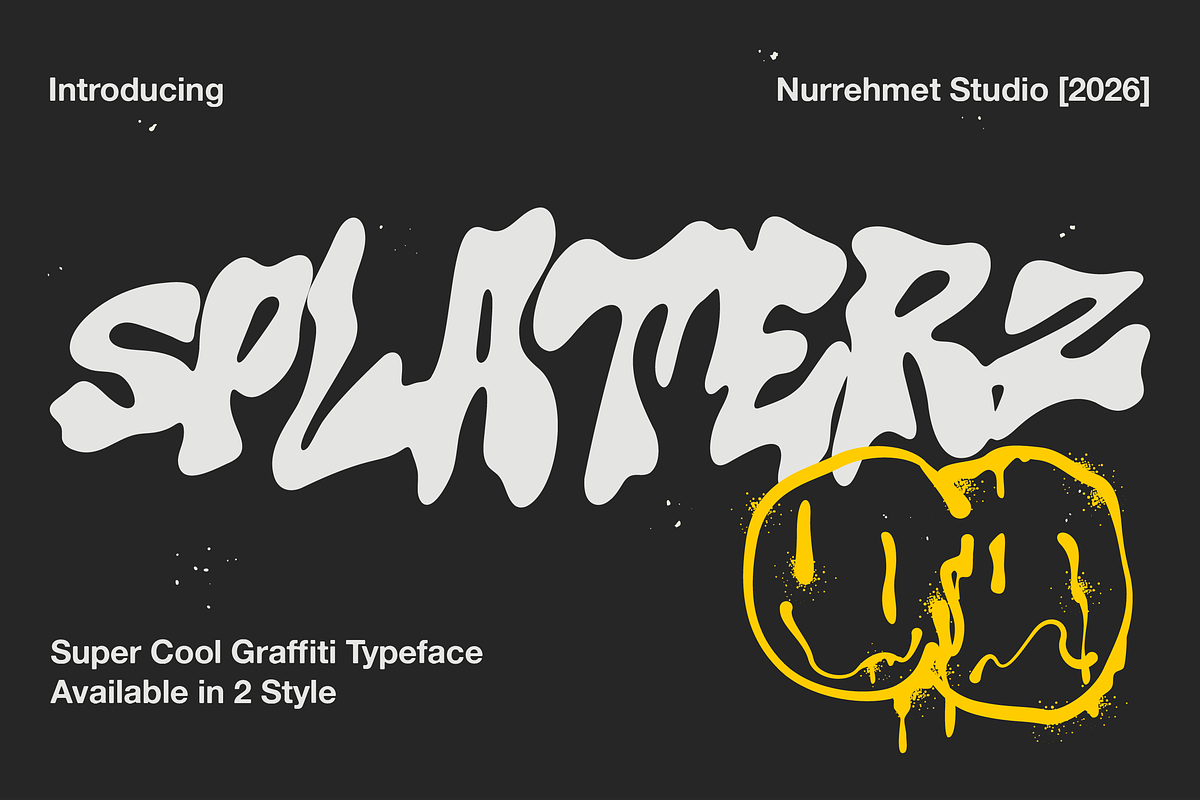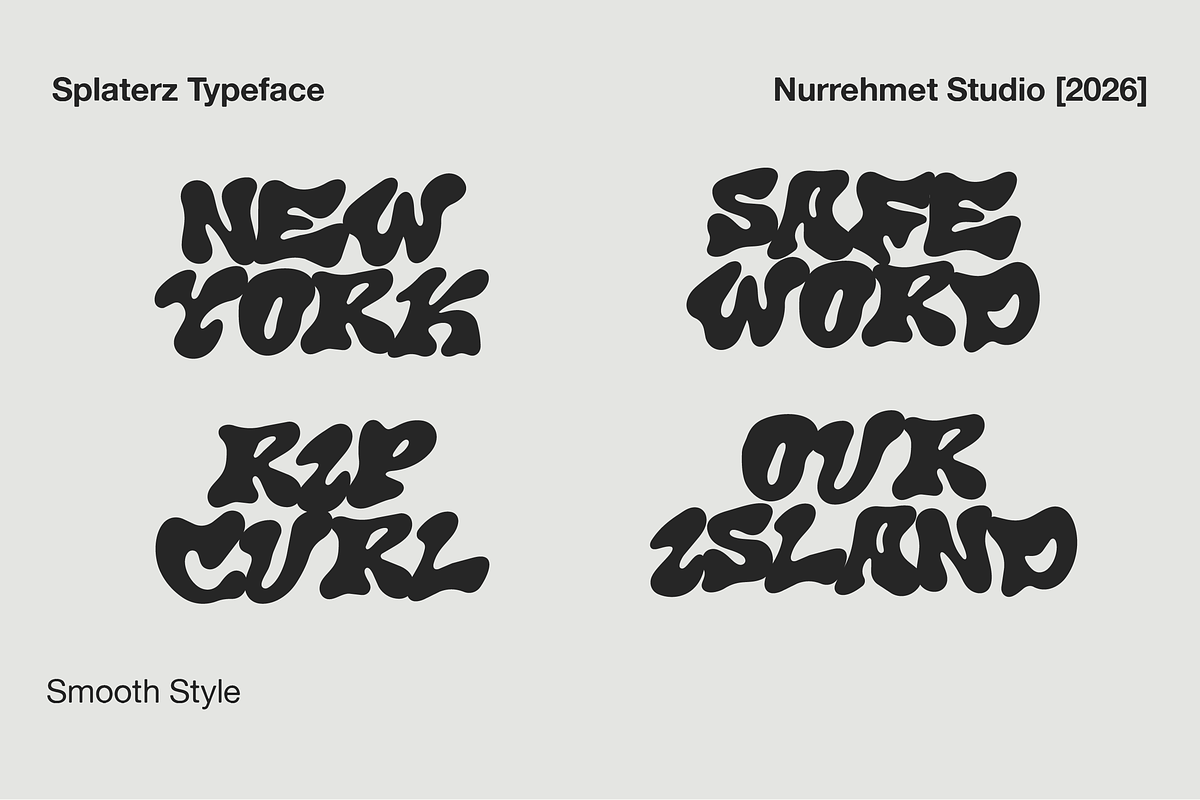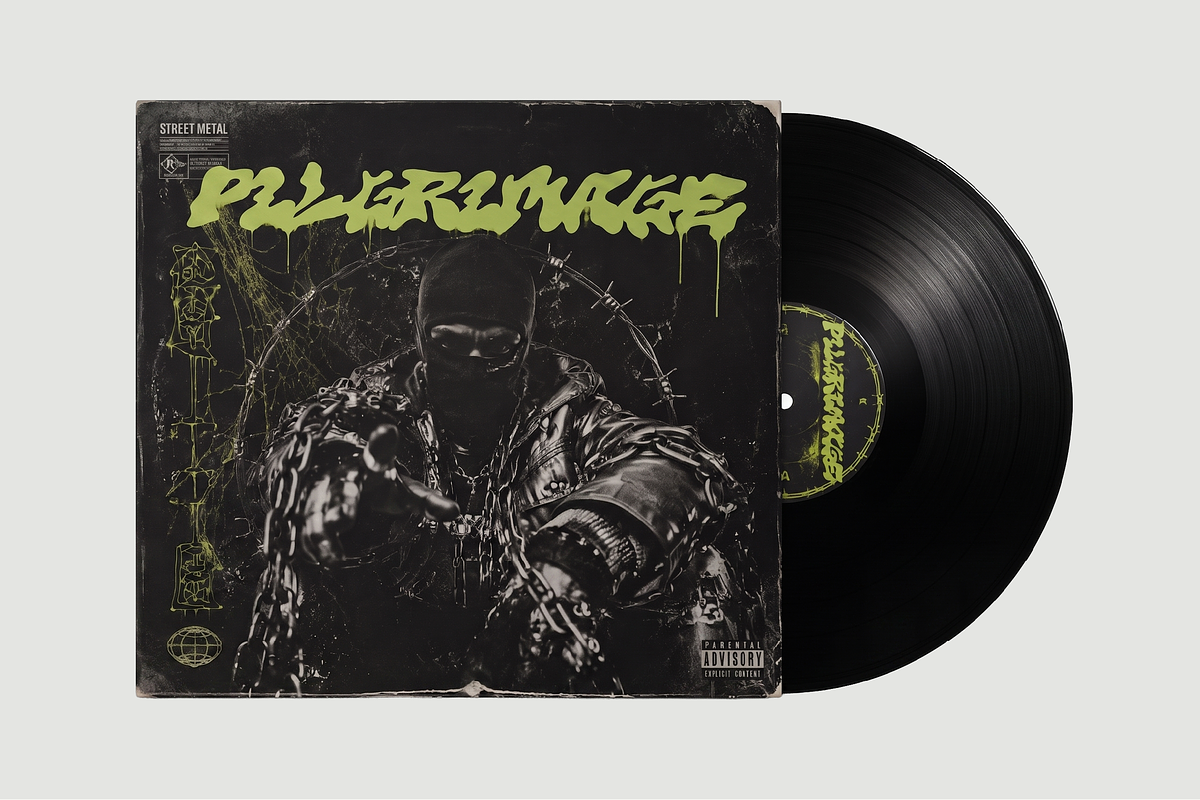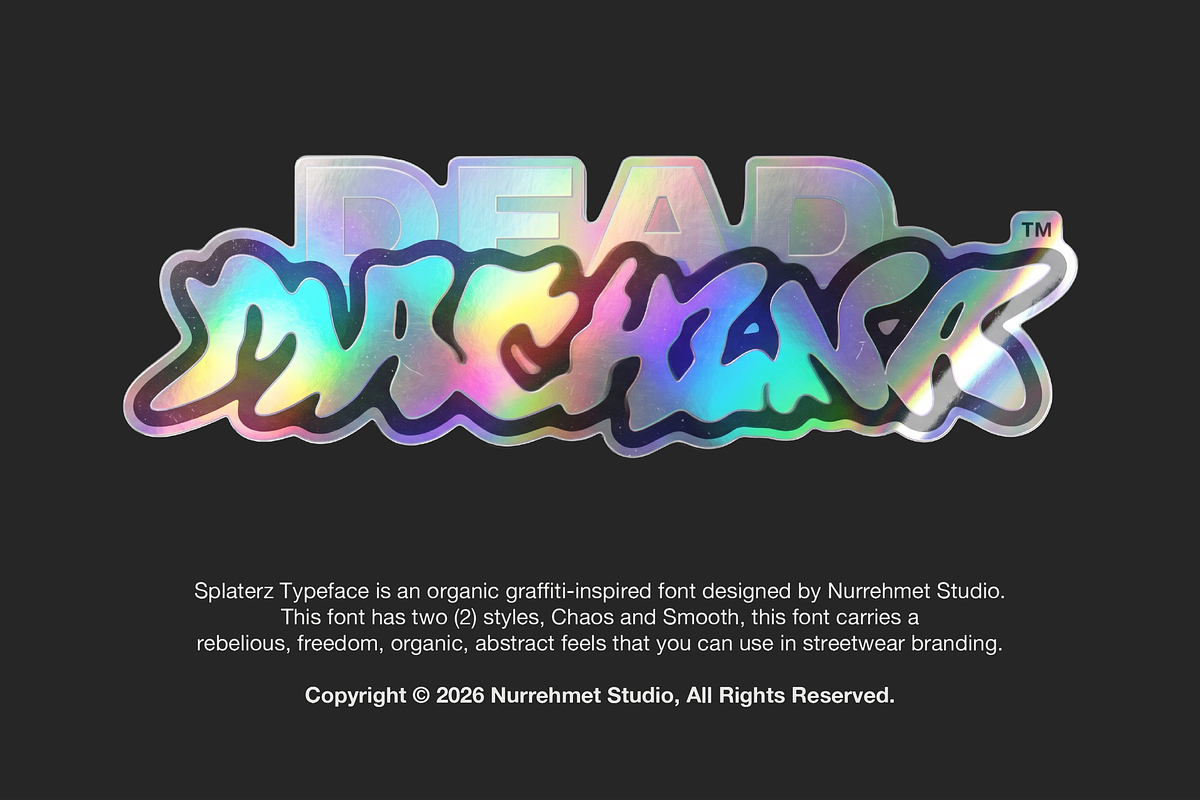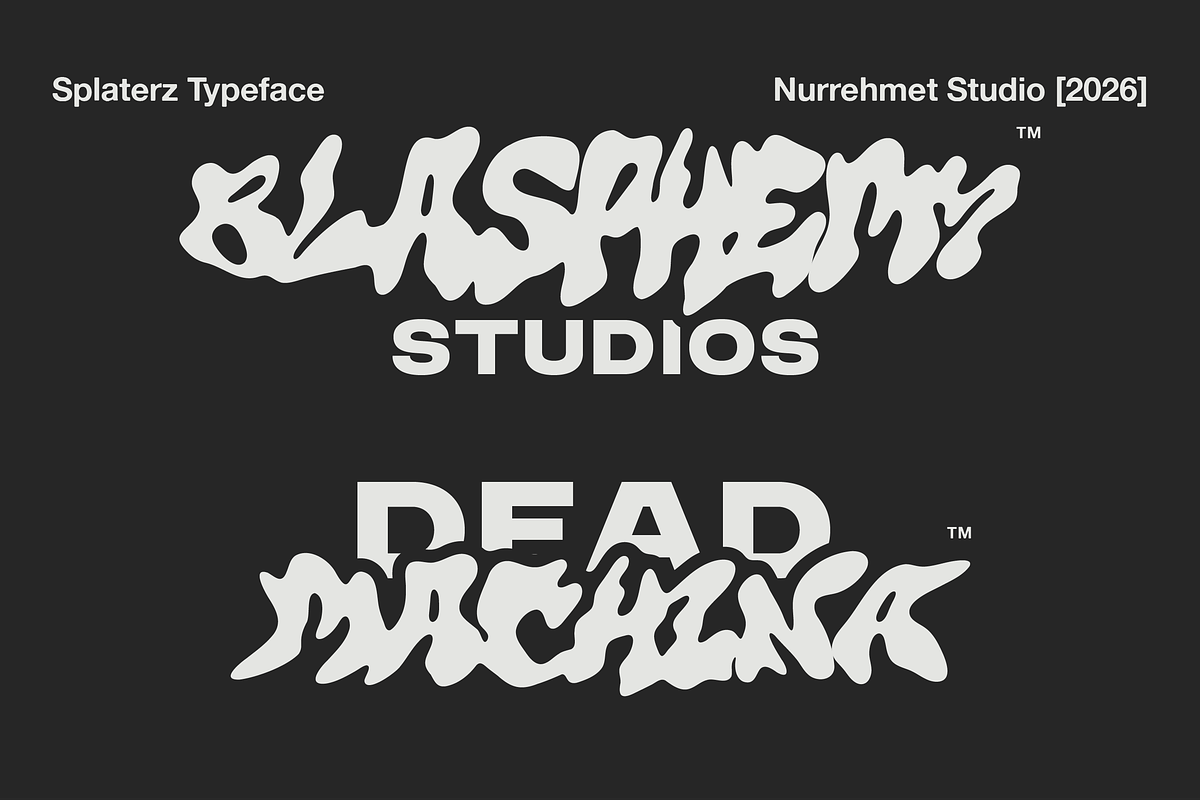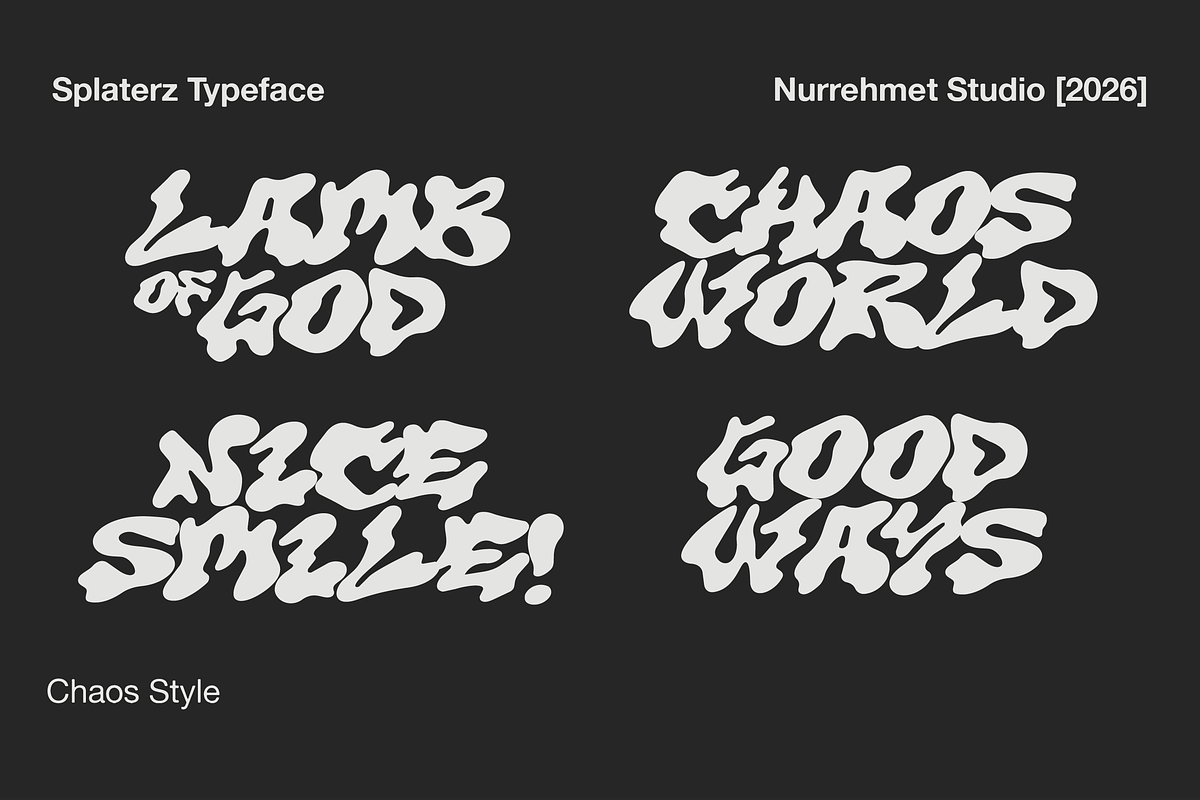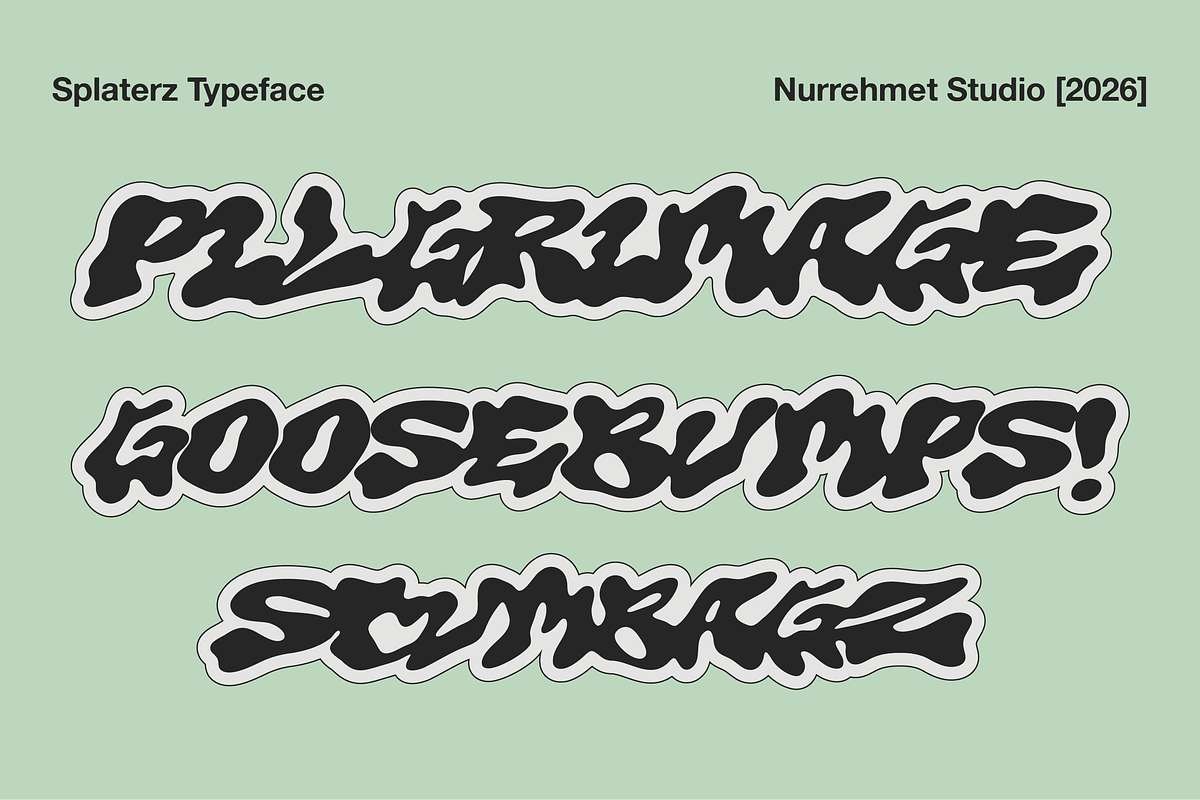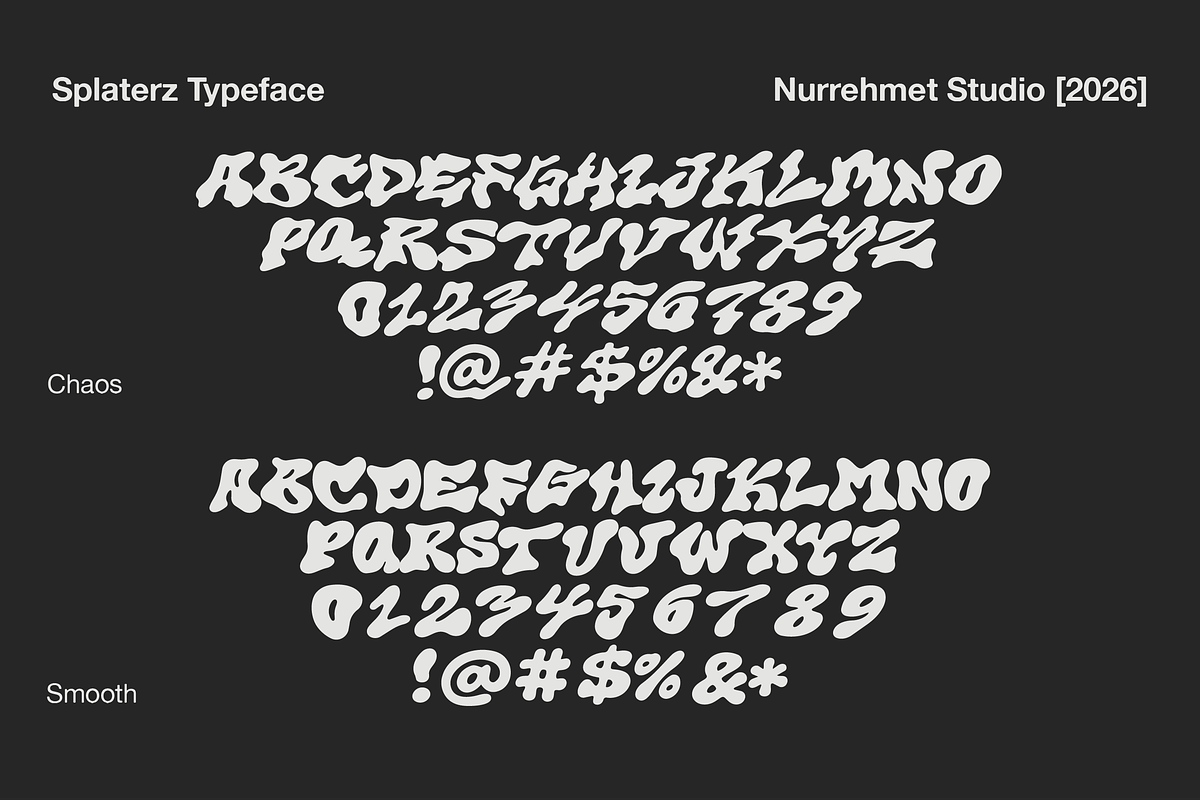
Splaterz NS - Organic Graffiti Font
Splaterz Typeface is a bold graffiti font inspired by raw street tags, paint drips, and underground urban culture. It was made to feel loud, rebellious, and full of attitude, like fresh spray paint on a concrete wall. The font comes in two styles so you can switch between clean and chaotic depending on the vibe of your project.
Splaterz Smooth A thick, bubbly throw-up style with cleaner edges and strong readability. Great for streetwear logos, posters, and modern branding with a graffiti touch.
Splaterz Chaos The same bold structure, but rougher and more aggressive, with messy splatters and dripping details for a raw hand-painted feel.
Streetwear and apparel graphics
Album covers and music branding
Skateboard, punk, and hip-hop designs
Festival posters and club flyers
Sticker packs and merch
Bold packaging and social media graphics
2 font styles: Smooth & Chaos